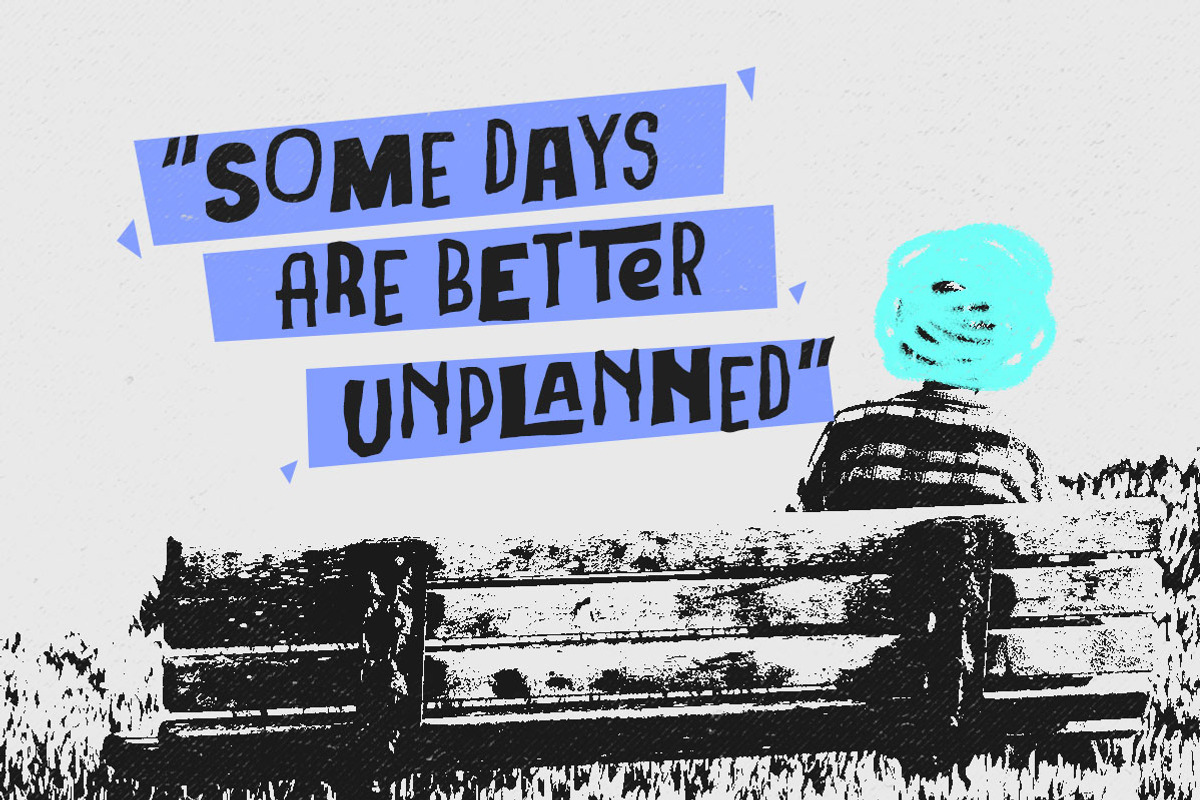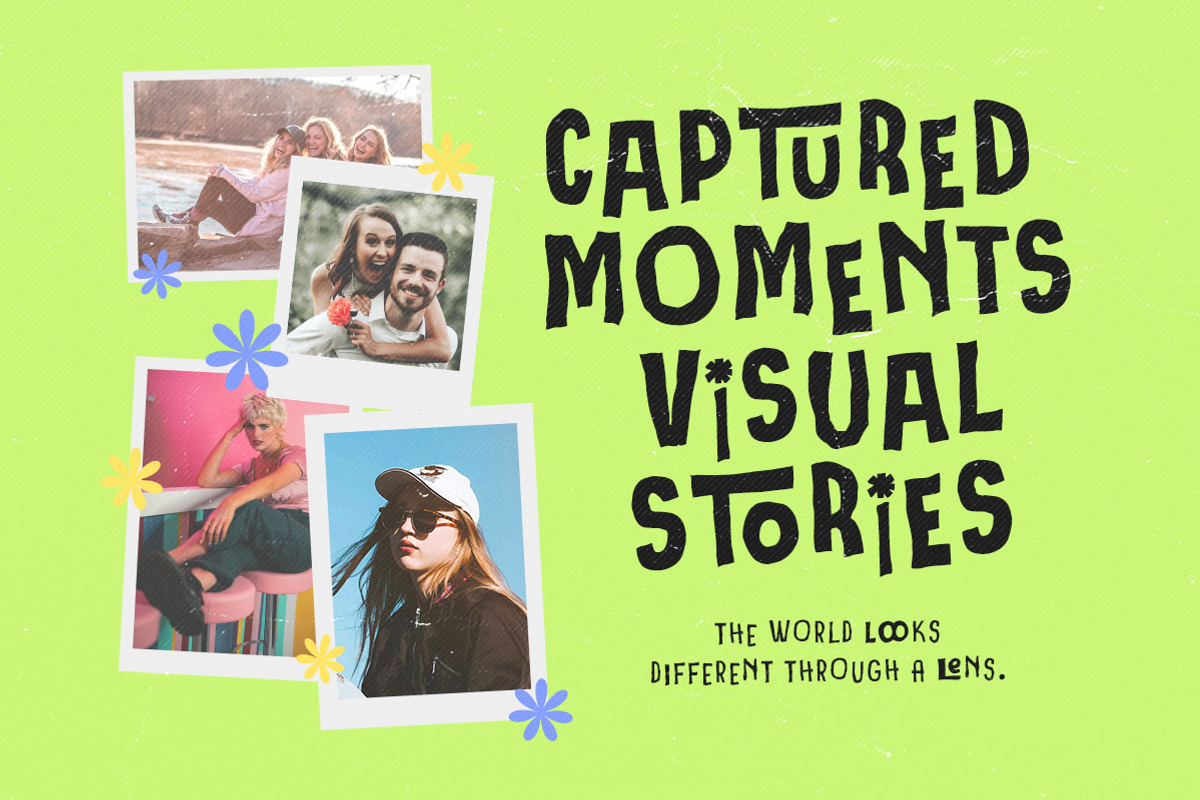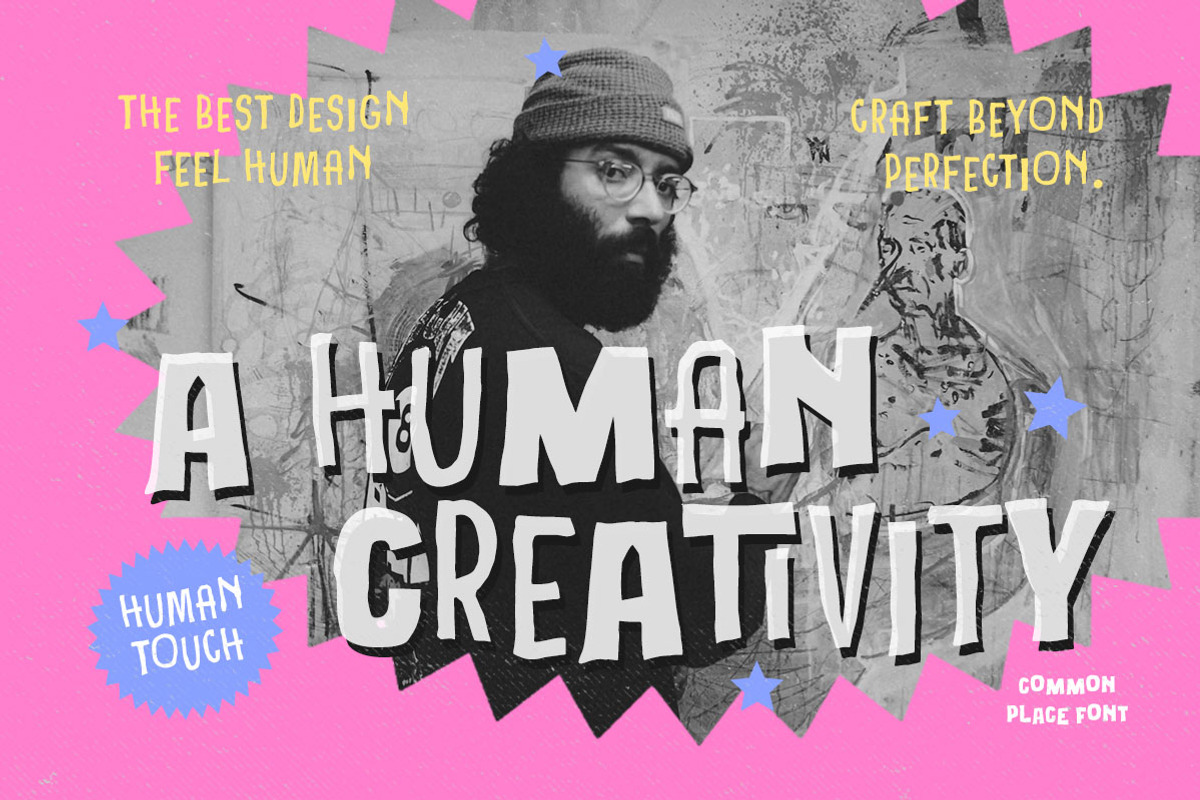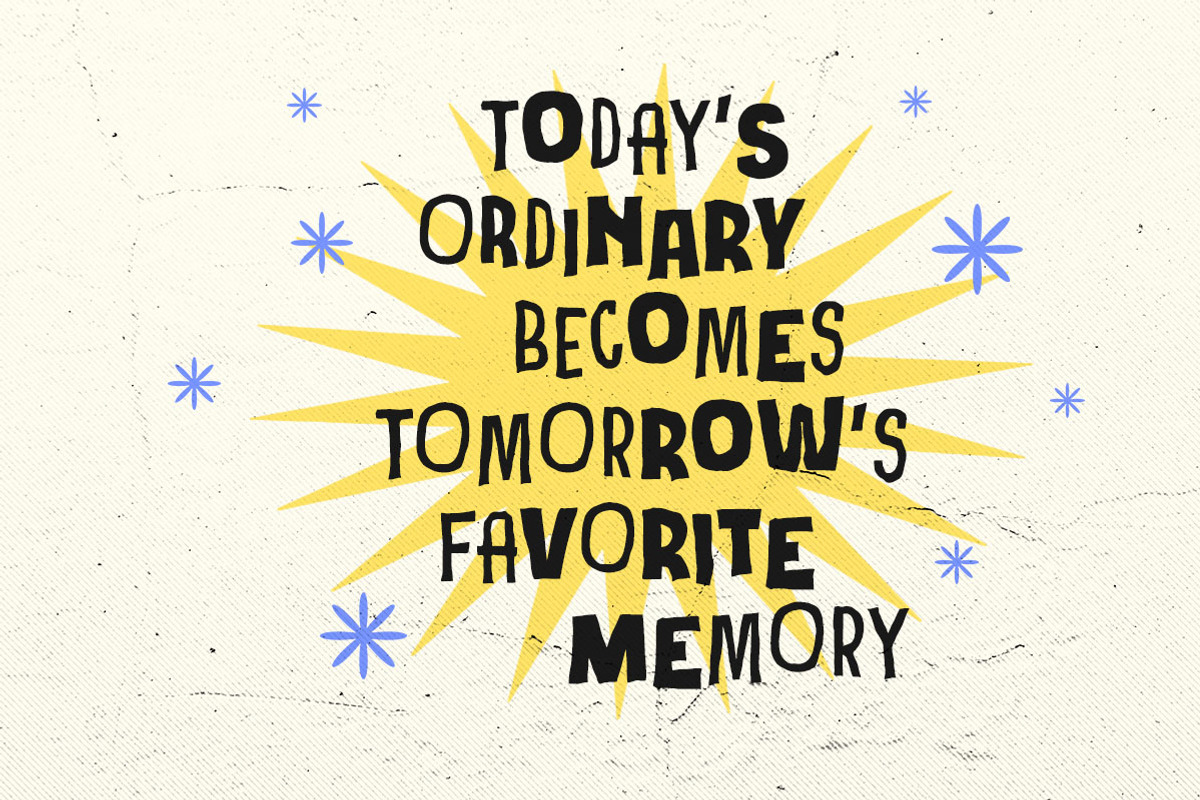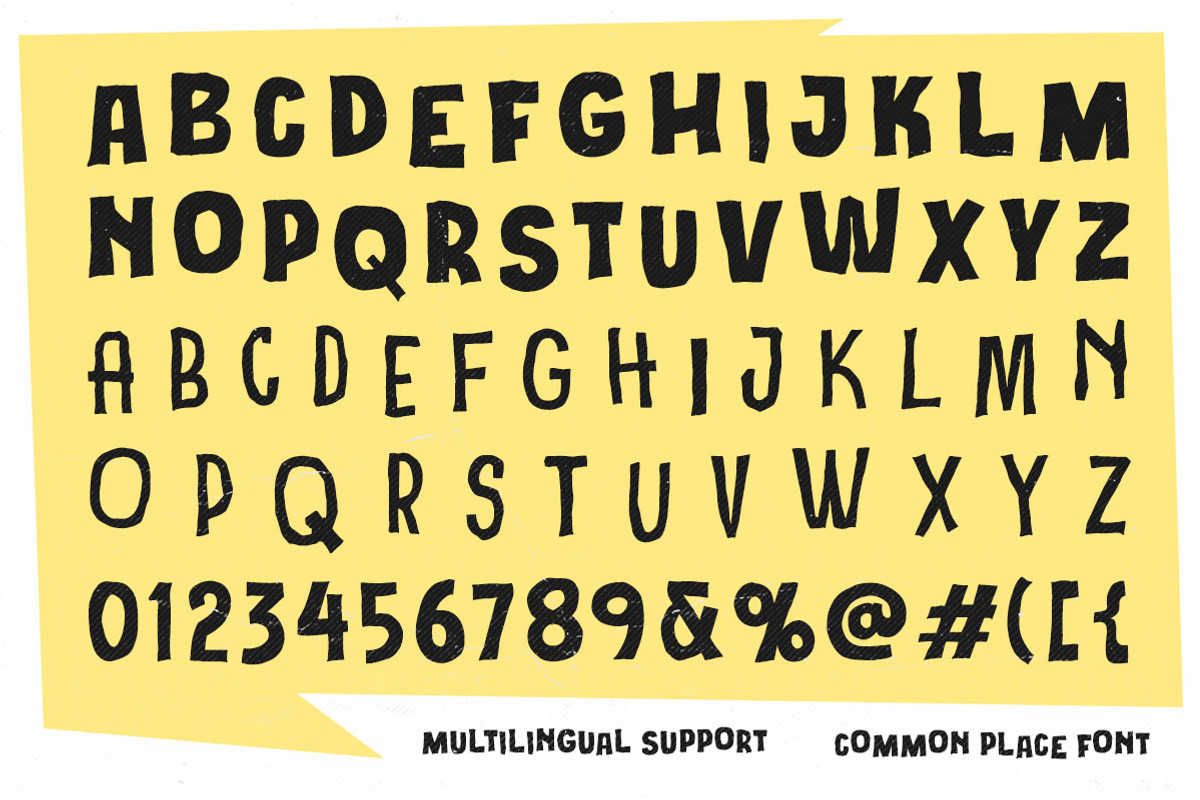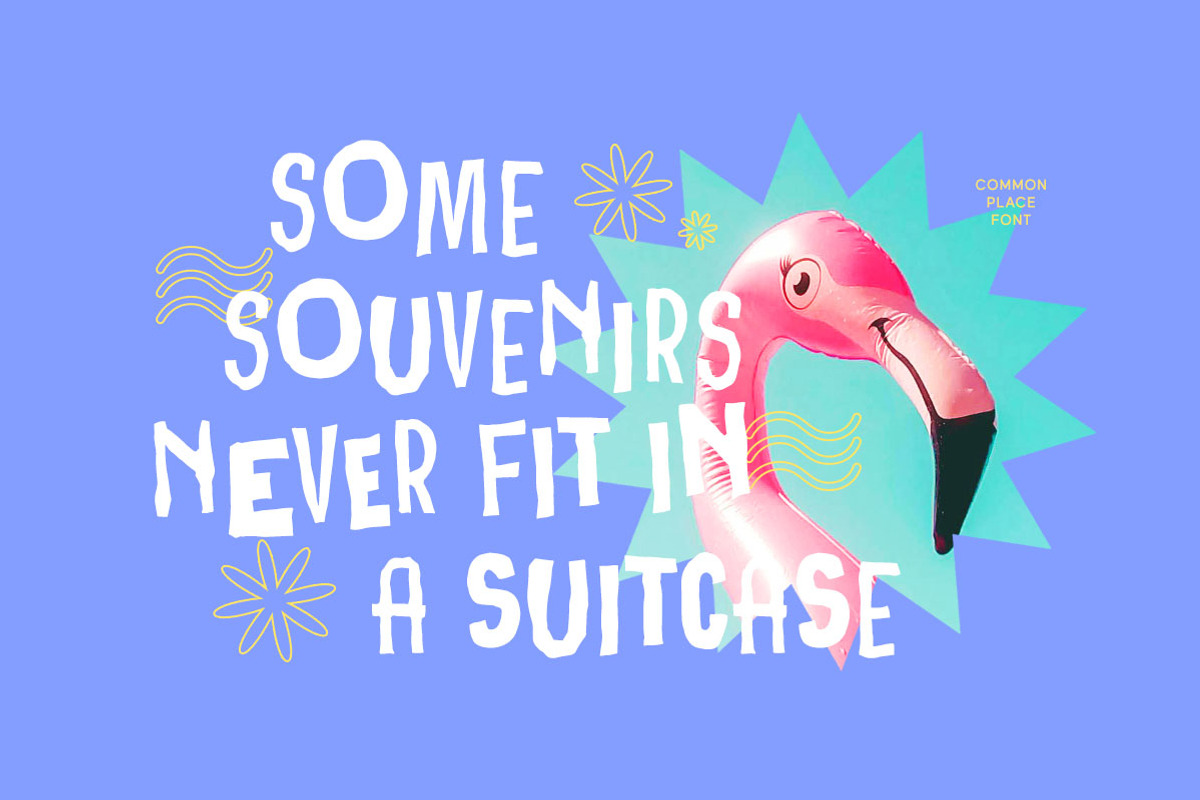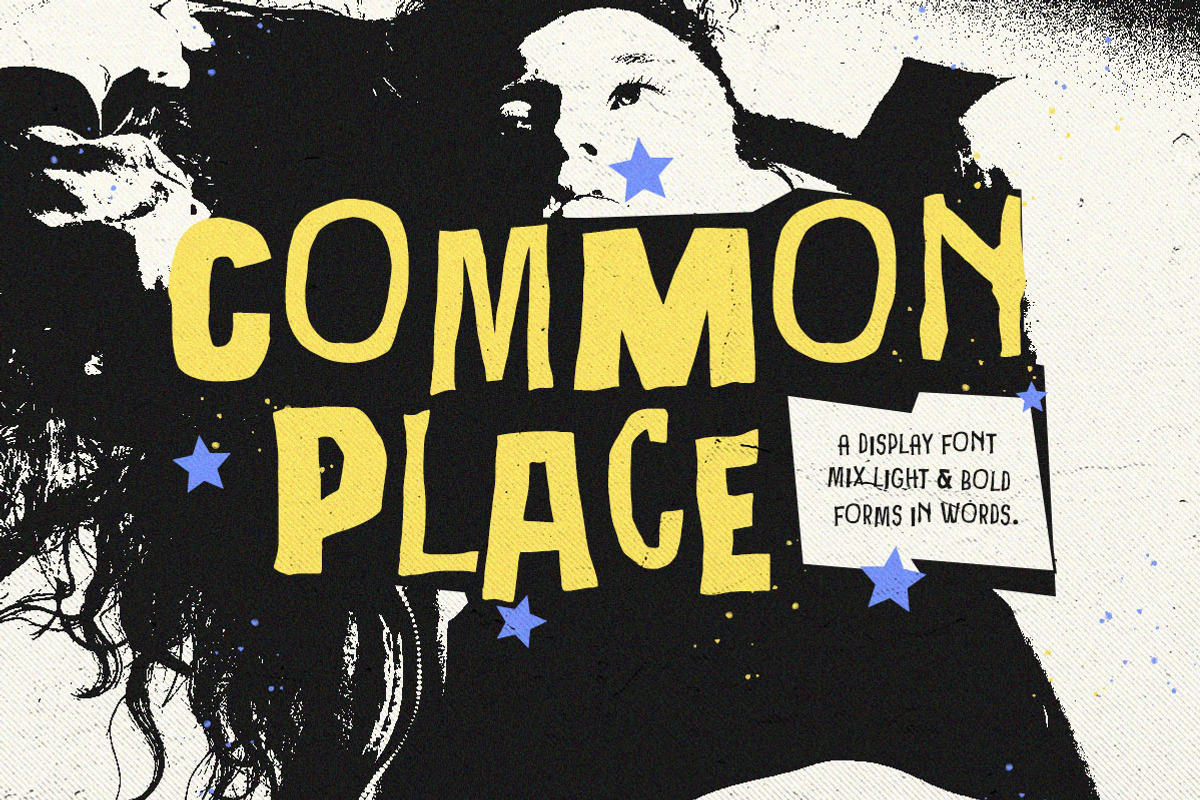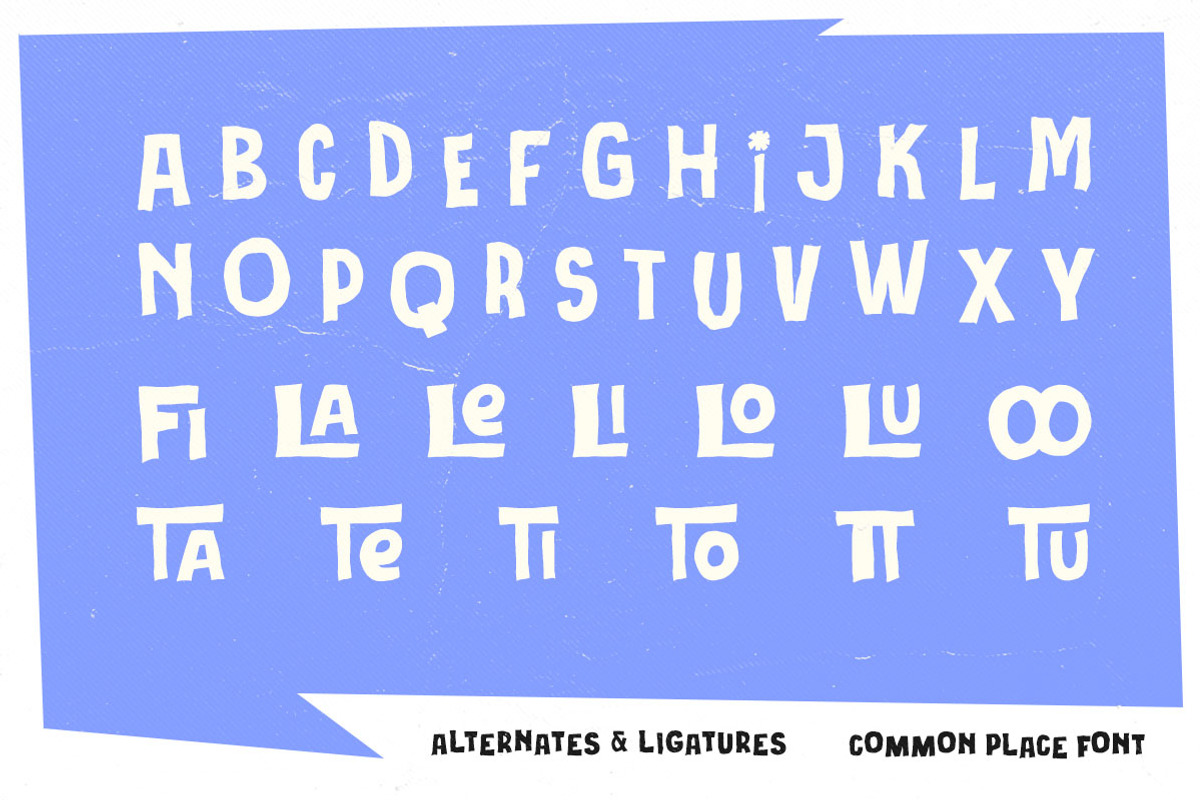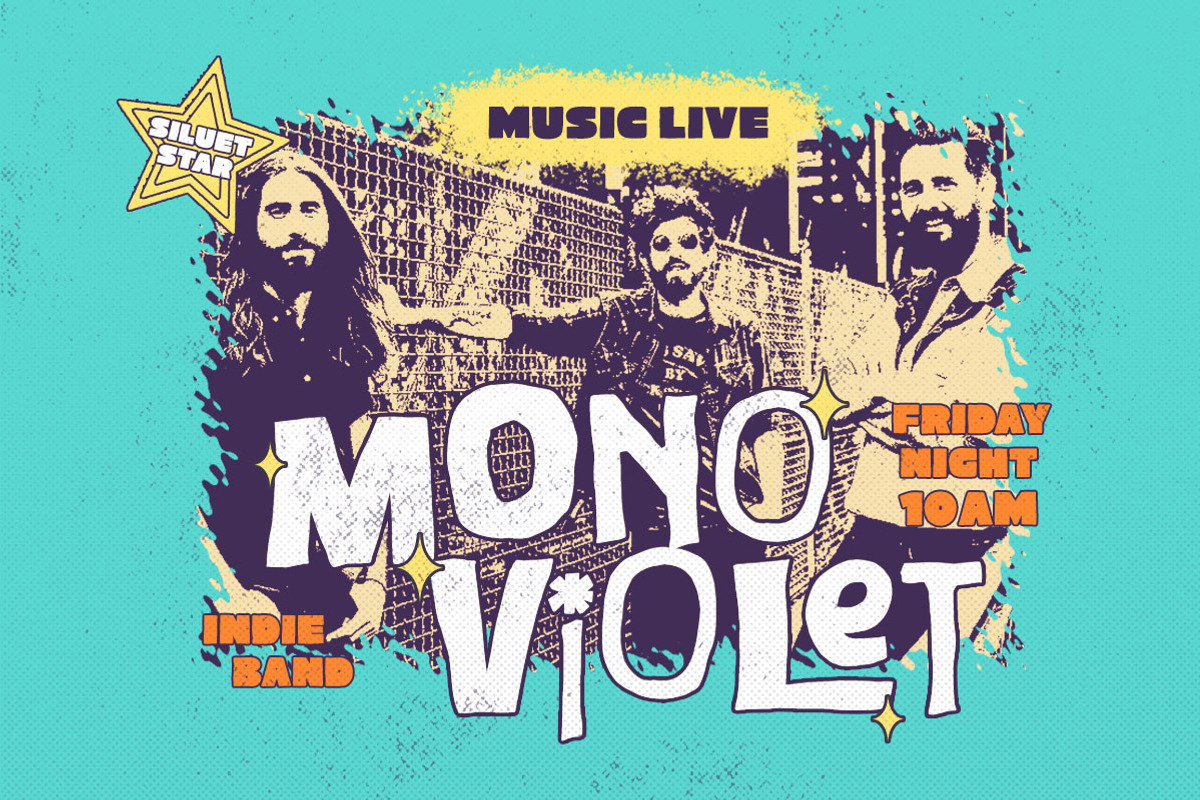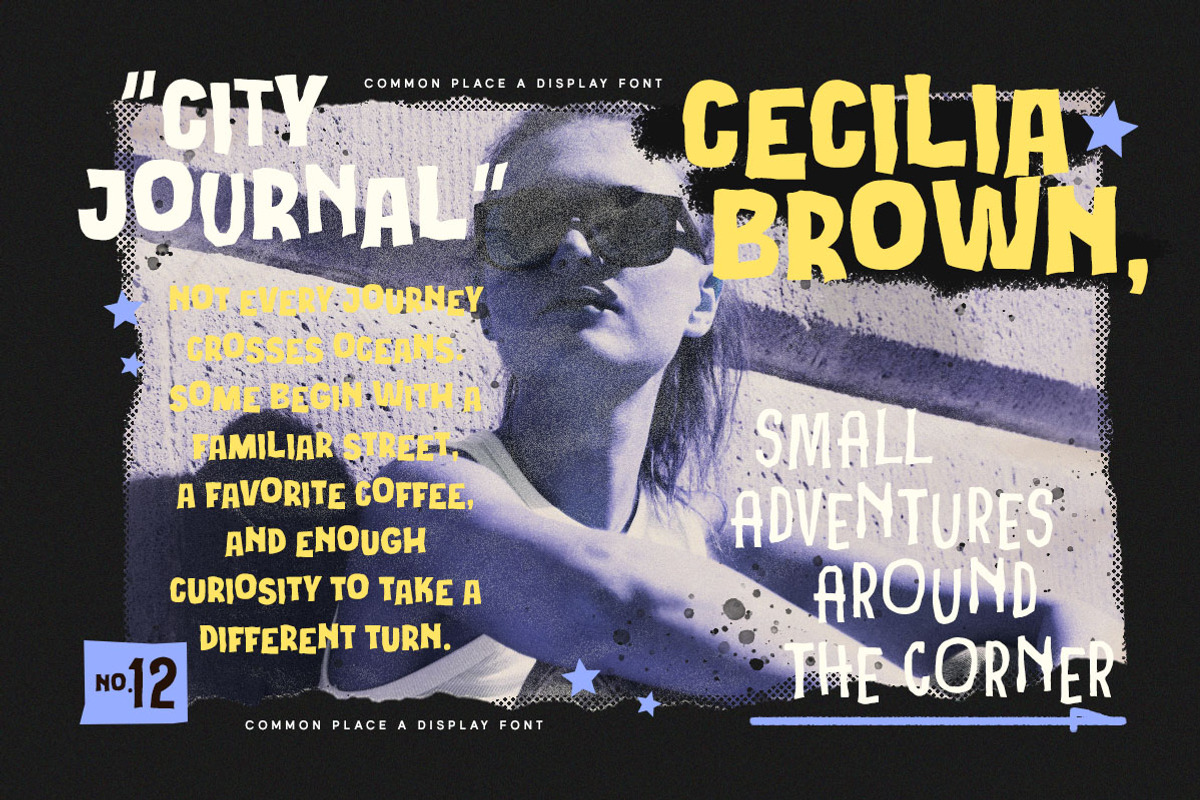
Common Place Zine Paper Display Font
Common Place captures the raw energy of handmade collage, where mismatched letters, uneven shapes, and playful imperfections come together with effortless confidence. Inspired by DIY zines, ransom note lettering, indie gig posters, and cut-paper compositions, every word feels spontaneous, expressive, and full of personality.
Uppercase & lowercase
Numbers and punctuation
Alternates & Ligatures